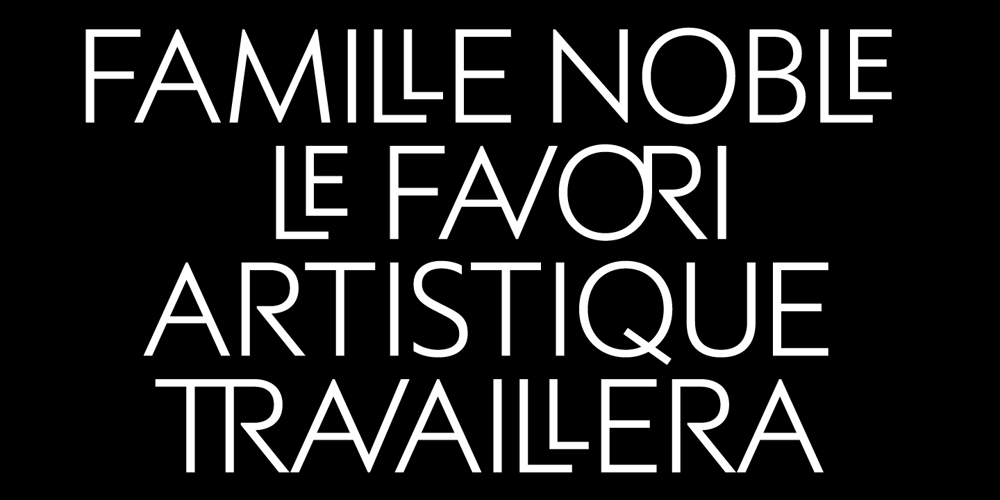
Averes Title Font Family was designed by Michael Jarboe and published by Reserves. Averes Title contains 3 styles and family package options. Averes Title is a sharp geometric sans titling typeface available in three weights. It features an array of stylistic discretionary ligatures with corresponding accented variants supporting numerous languages. Features include: Discretionary ligature feature Romanian s accent language feature Dutch IJ language feature Polish kreska language feature Slashed zero Ordinals feature Language: Afrikaans, Albanian, Asu, Basque, Bemba, Bena, Catalan, Chiga, Congo Swahili, Cornish, Danish, Embu, English, Esperanto, Faroese, Filipino, French, Galician, Ganda, German, Gusii, Hungarian, Icelandic, Indonesian, Irish, Italian, Jola-Fonyi, Kabuverdianu, Kalaallisut, Kalenjin, Kamba, Kikuyu, Kinyarwanda, Luo, Luyia, Machame, Makhuwa-Meetto, Makonde, Malagasy, Malay, Maltese, Manx, Meru, Morisyen, North Ndebele, Norwegian Bokmål, Norwegian Nynorsk, Nyankole, Oromo, Polish, Portuguese, Romanian, Romansh, Rombo, Rundi, Rwa, Samburu, Sango, Sangu, Sena, Shambala, Shona, Soga, Somali, Spanish, Swahili, Swedish, Swiss German, Taita, Teso, Turkmen, Vunjo, Welsh, Zulu *Requires an application with OpenType and/or Unicode support.